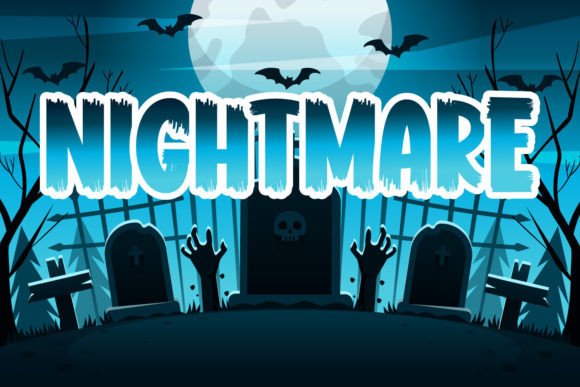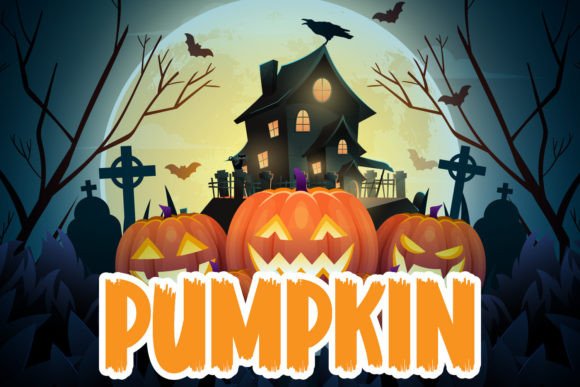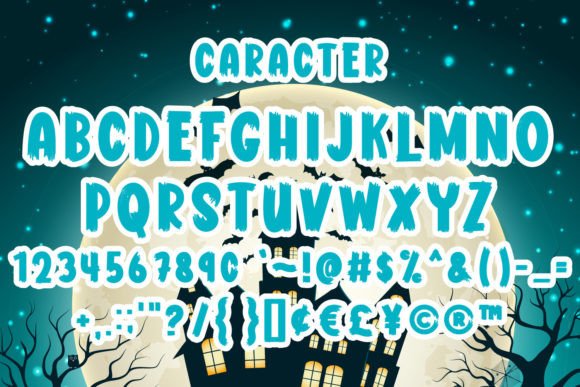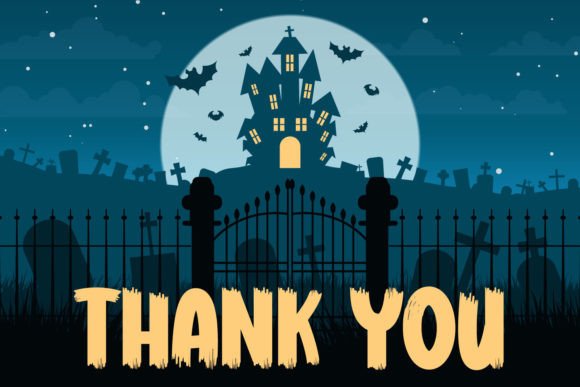
Introduction to Paint Halloween Font
As a designer, there’s nothing quite like that moment when a project comes together – the final pieces fall into place, and the entire creation feels like a cohesive work of art. But what happens when you need a font that truly stands out from the crowd? That’s where the Paint Halloween Font comes in – a bold and incredibly unique display font designed to elevate your creative ideas to the next level.
Whether you’re working on a free download or a high-quality design project, the Paint Halloween Font is an invaluable resource for designers. With its transparent background and versatile design, this font is perfect for adding a touch of whimsy and personality to your work. And with its high-quality design, you can trust that your final product will be nothing short of stunning.
Key Features of Paint Halloween Font
- Unique and spooky design perfect for creative projects and Halloween-themed designs.
- High-quality font with a transparent background, ideal for use in various design resources.
- Perfect for designers and artists working on Halloween-themed designs, craft projects, and other creative endeavors.
- Can be used as a design resource for various digital and print projects, including invitations, posters, and more.
Honest Review: Paint Halloween Font
I recently had the opportunity to try out the Paint Halloween Font, a free download that’s perfect for any creative project. I was excited to see how it would add to my design.
- ✨ Unique and playful design: The Paint Halloween Font is exactly what it promises – a spooky and fun font perfect for Halloween-themed designs.
- ✨ High quality: The font is well-designed and has a professional look, making it suitable for both personal and commercial projects.
- ✨ Transparent background: This feature is super convenient, allowing me to easily place the font on any background without worrying about complicated image editing.
- ⚠️ Limited font styles: While the Paint Halloween Font is great for Halloween-themed designs, it’s limited to a single style. If you’re looking for more font options, you might be disappointed.
Overall, I’m impressed with the Paint Halloween Font. It’s a great design resource for any creative project, especially those with a Halloween theme. Just be aware of its limitations, and you’ll be good to go!
Paint Halloween Font
Paint Halloween Font is a free design resource that can add a spooky touch to your creative projects. This font features a high-quality, gothic-inspired design with a transparent background, making it easy to use in a variety of applications.
Tips for Getting the Most Out of Paint Halloween Font
To get the most out of Paint Halloween Font, experiment with different font sizes, colors, and combinations with other design elements. You can also use this font in conjunction with other design resources, such as graphics and textures, to create a unique and eye-catching design.
Common Use Cases for Paint Halloween Font
Paint Halloween Font is commonly used in creative projects, such as: invitations, posters, social media graphics, print designs, digital art, presentations, and reports. You can also use this font in a variety of industries, such as entertainment, education, and marketing.